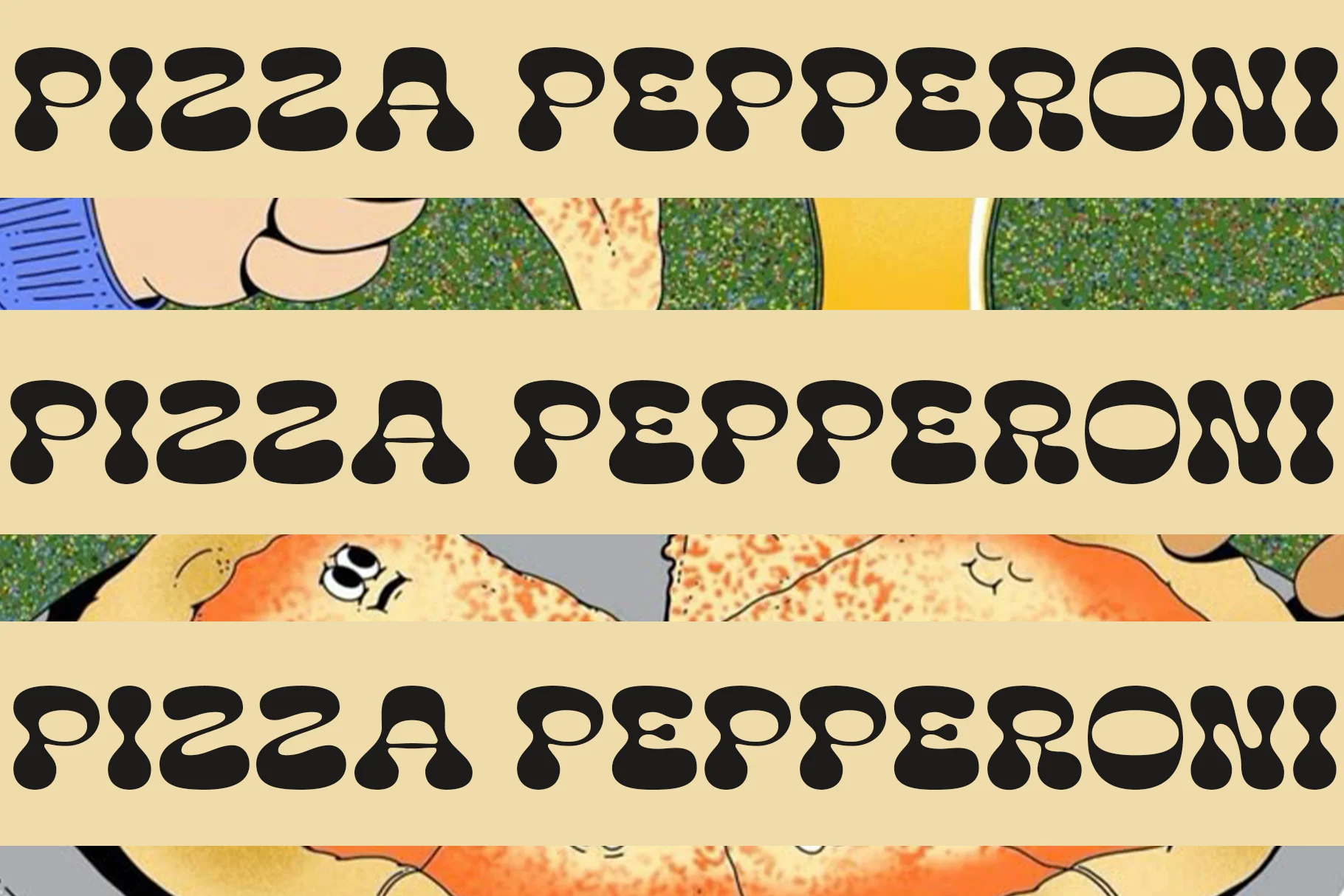
Green Felas
The font clearly embodies the aesthetic of the 1960s and 1970s, often associated with the groovy and psychedelic movements. The letterforms are not rigid; they feature thick, rounded edges that appear "melted" or "blobby." This creates a highly organic, fun, and vibrant impression. With an extremely heavy weight (extra bold) and unique shaping, the font possesses a very cheerful, strong, and eye-catching character.